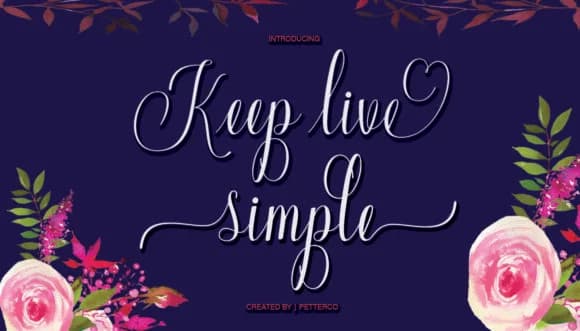
Keep Live Simple, designed by petterco.font, brings hand-drawn confidence to a script that refuses to feel clumsy or apologetic. The letterforms dance between loose and controlled, with thick strokes that anchor each character while maintaining that spontaneous pen-on-paper feel. There's a boldness built into the design that keeps them readable at any size without looking stiff or overworked, making it genuinely useful beyond just aesthetic appeal.
This script shines in projects where authentic hand-drawn warmth matters without sacrificing clarity. Wedding invitation suites benefit from that balance of personality and polish, as do engagement announcements and custom thank-you card sets. Small-batch stationery for independent sellers, hand-lettered product labels, and event signage all gain character without losing legibility. The dual nature of casual yet confident makes it work equally well on coffee shop menu boards or as display type in a boutique packaging system. You could pair it with clean layouts for contemporary brands that want personality with their minimalism.
Keep Live Simple Font is a script font that shines as a display or heading face. Pair it with a clean sans-serif or serif font for body text β the contrast creates a clear hierarchy while the two styles stay balanced and easy to read.